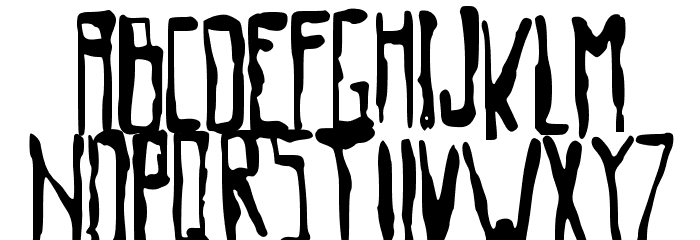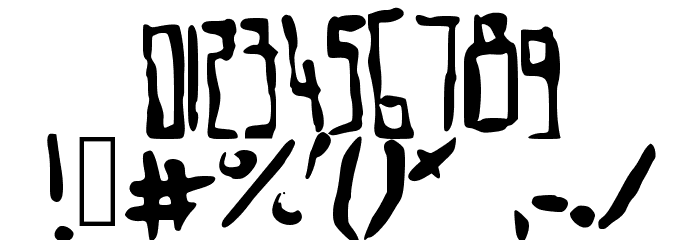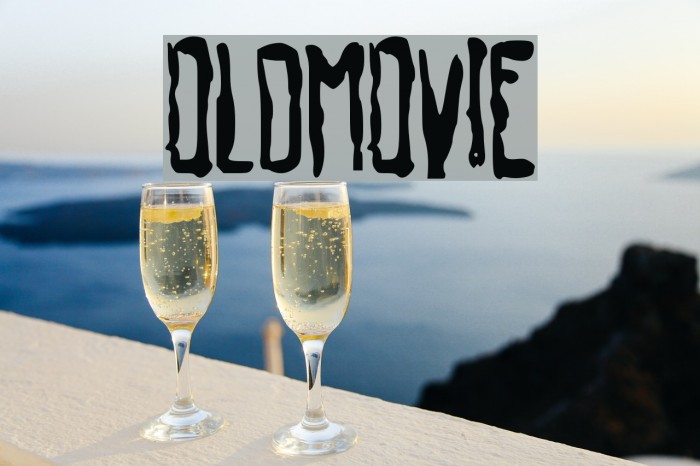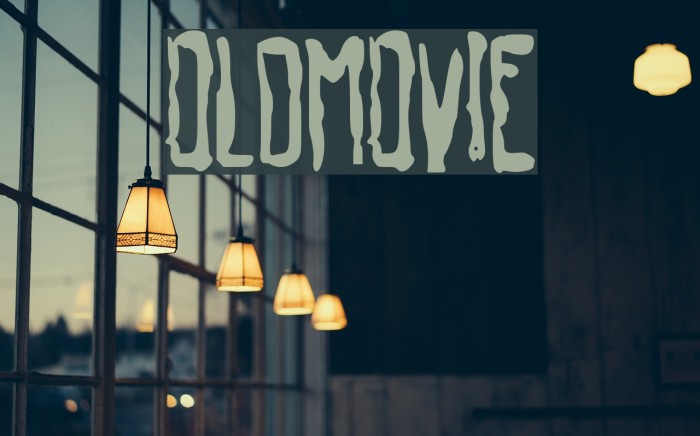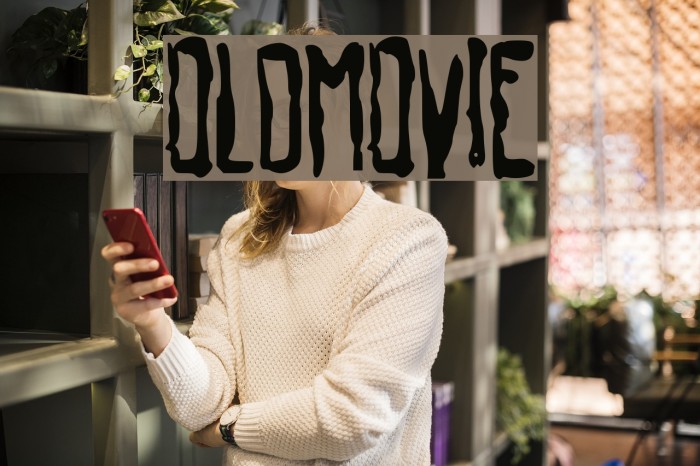
OldMovie Font
This font features a unique, hand-drawn style with irregular, organic shapes that give it a distinctive, artistic appearance. The characters are elongated and slightly distorted, creating a sense of movement and fluidity. The strokes are uneven, with varying thicknesses that add to the font's dynamic and expressive nature. This font captures a vintage, retro vibe reminiscent of old movie posters or classic horror films. Its quirky and playful design makes it stand out, while the irregularities in the letterforms contribute to its charm and character. The numbers and special characters maintain the same style, ensuring consistency across all elements.
A hand-drawn, vintage-style font with irregular, organic shapes and dynamic strokes.
- Proposed Projects: Ideal for vintage-themed posters, horror movie titles, artistic projects, and creative branding.
- Overall Style: Vintage